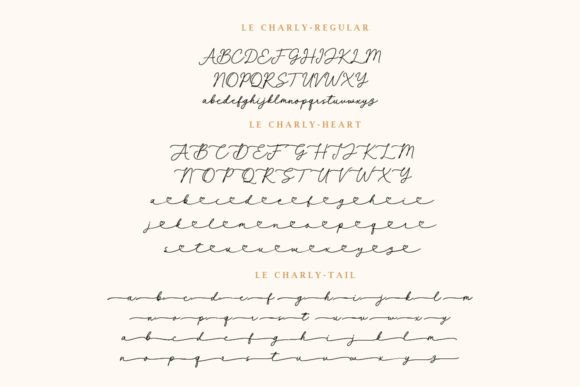
La Charly Font
La Charly is an exquisite and delicate handwritten script font that exudes elegance. It features captivating letter alternatives and enchanting tails at the beginning and end of each stroke. The font’s distinctive attribute lies in its heart-shaped connecting tail, which adds a touch of romance and charm.